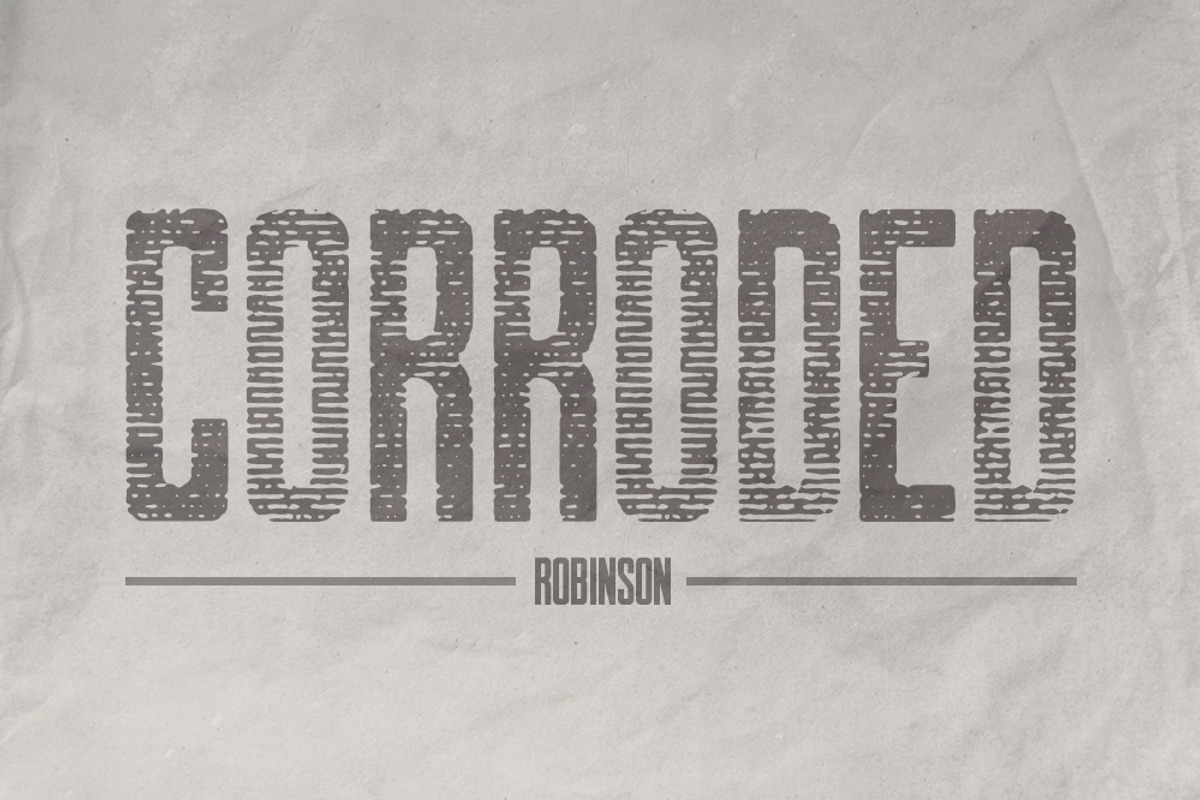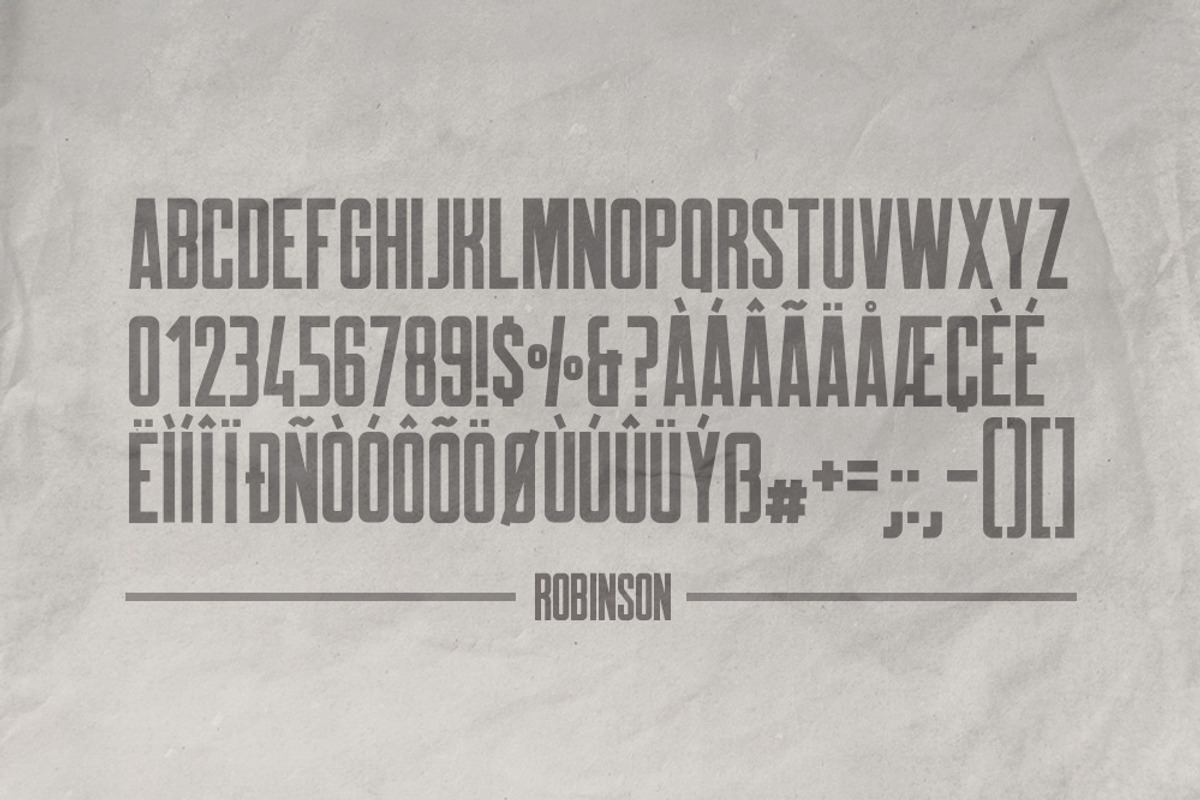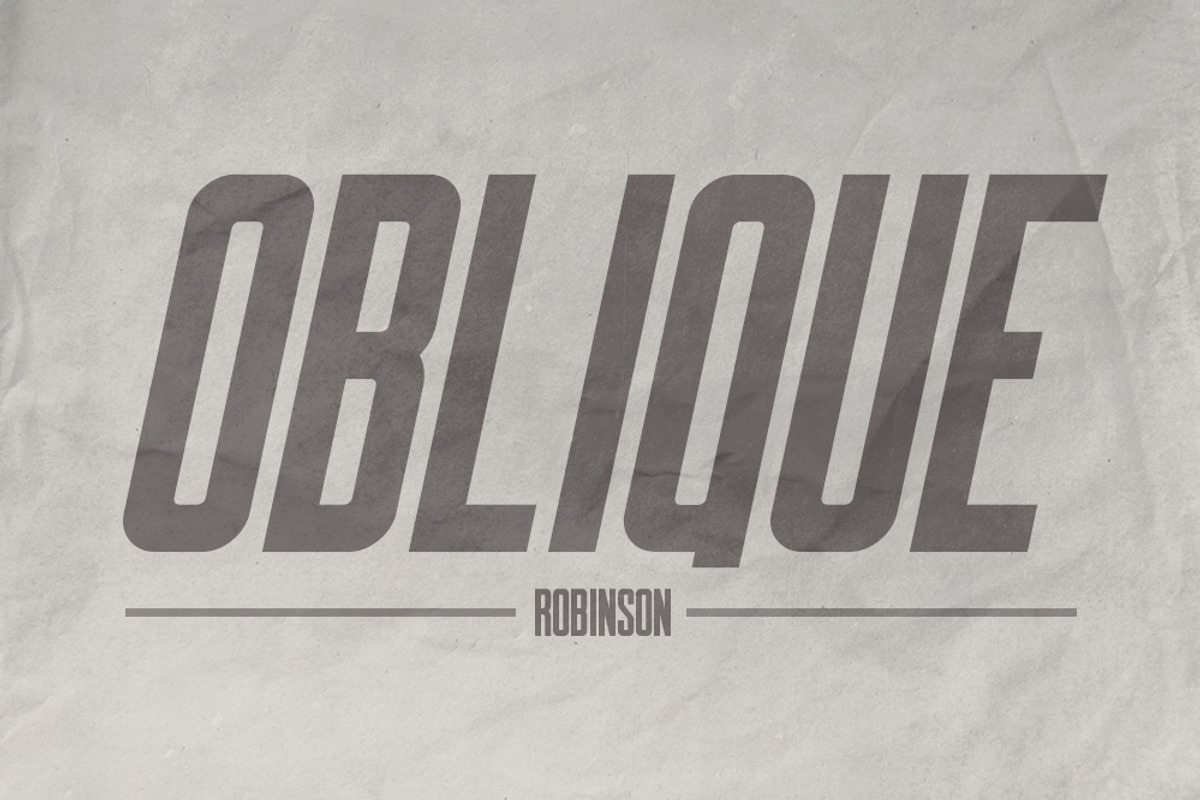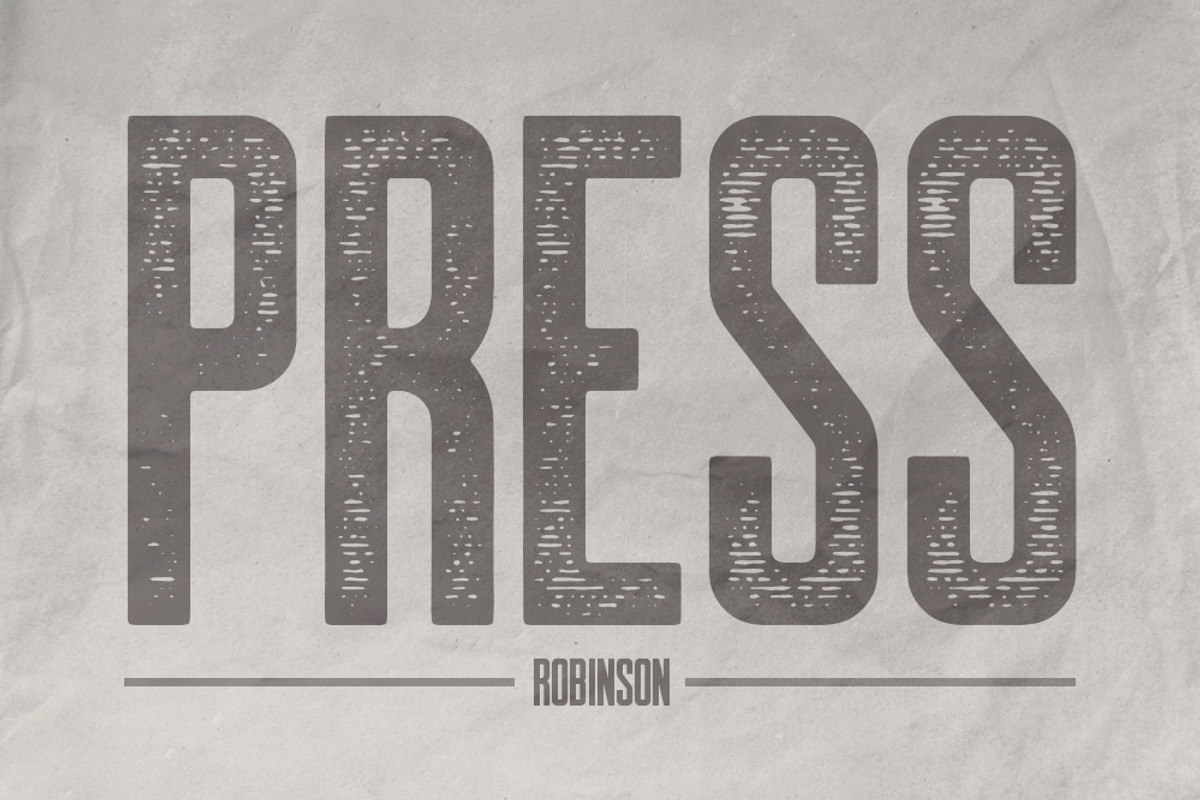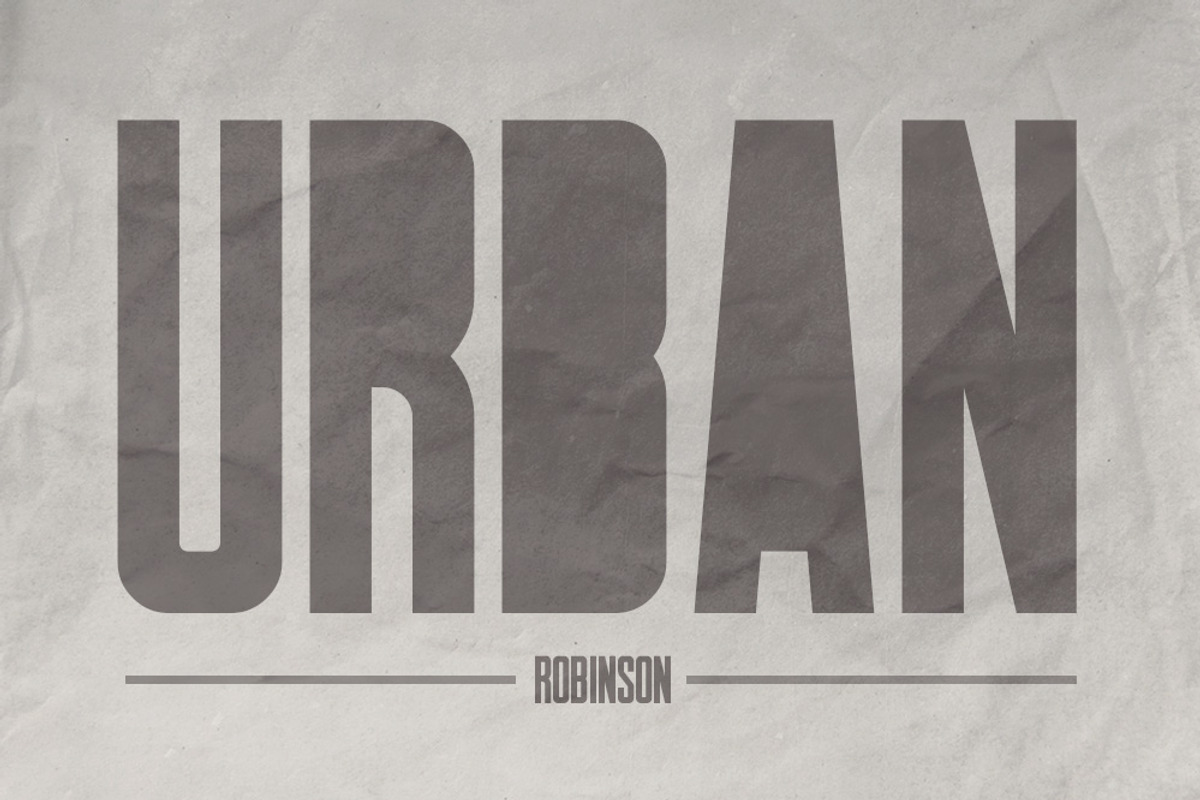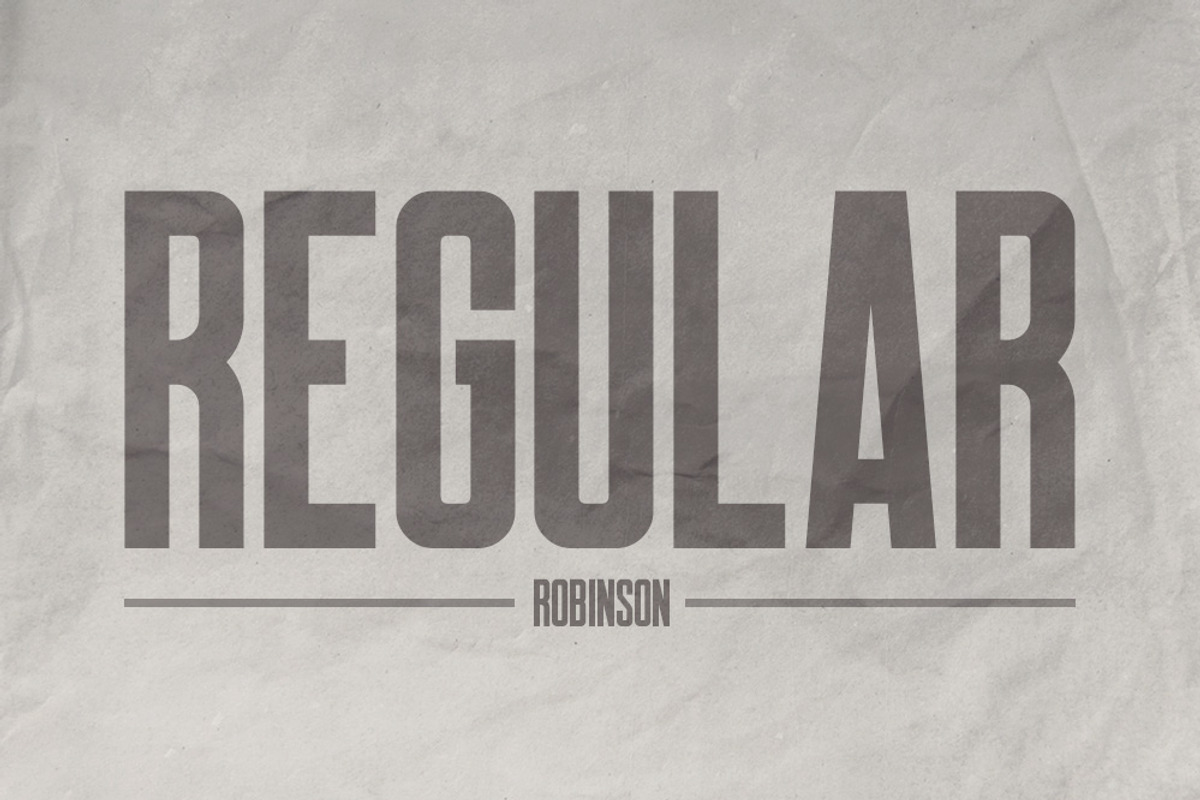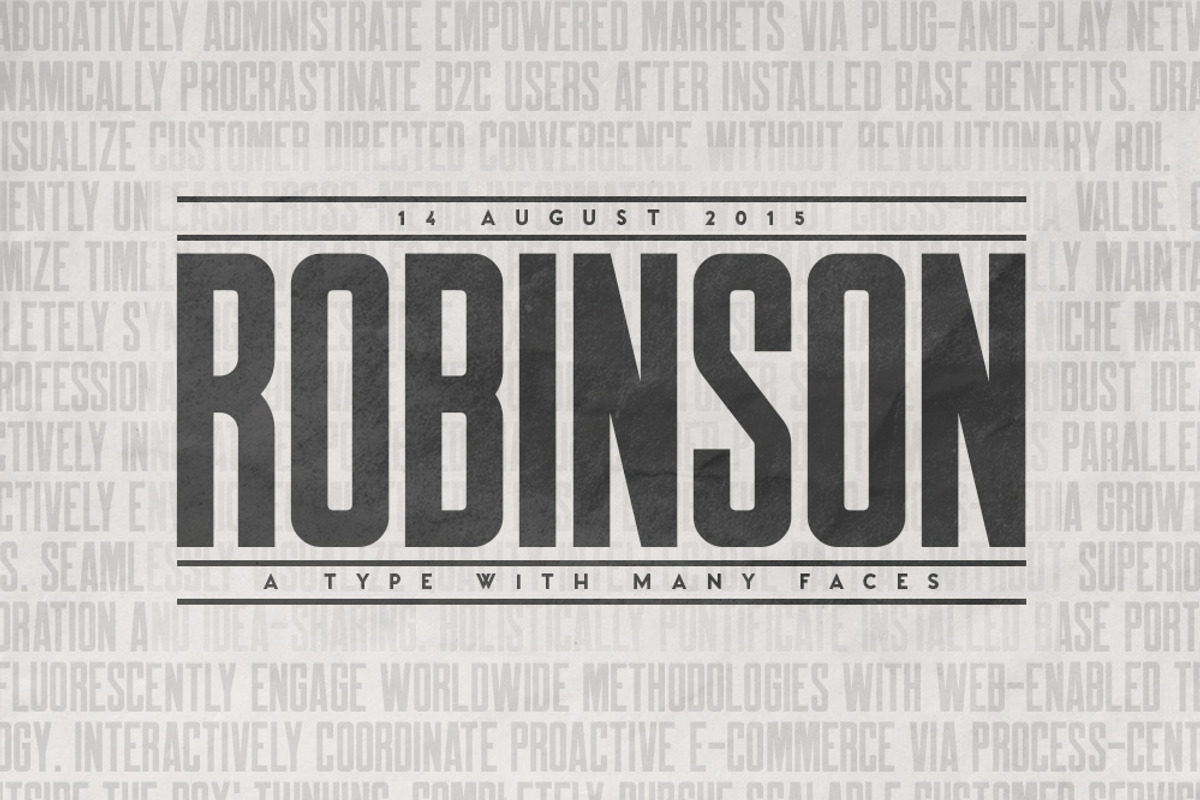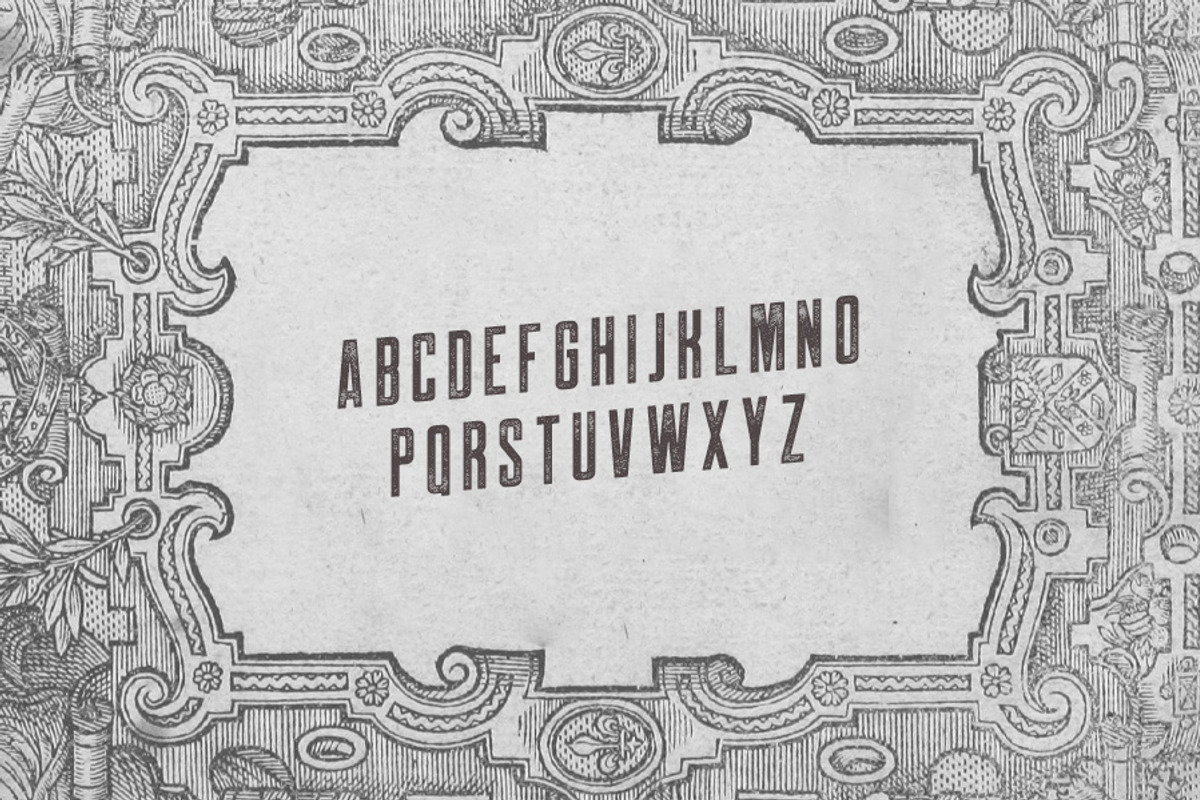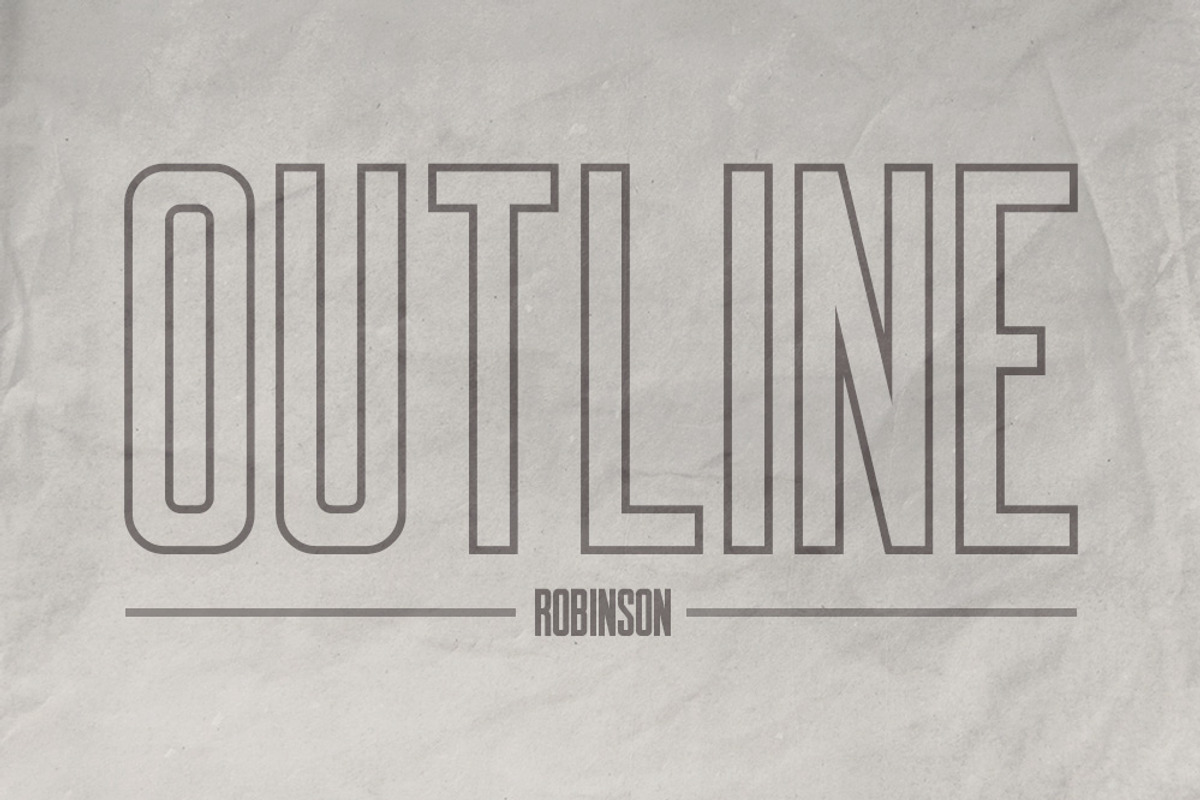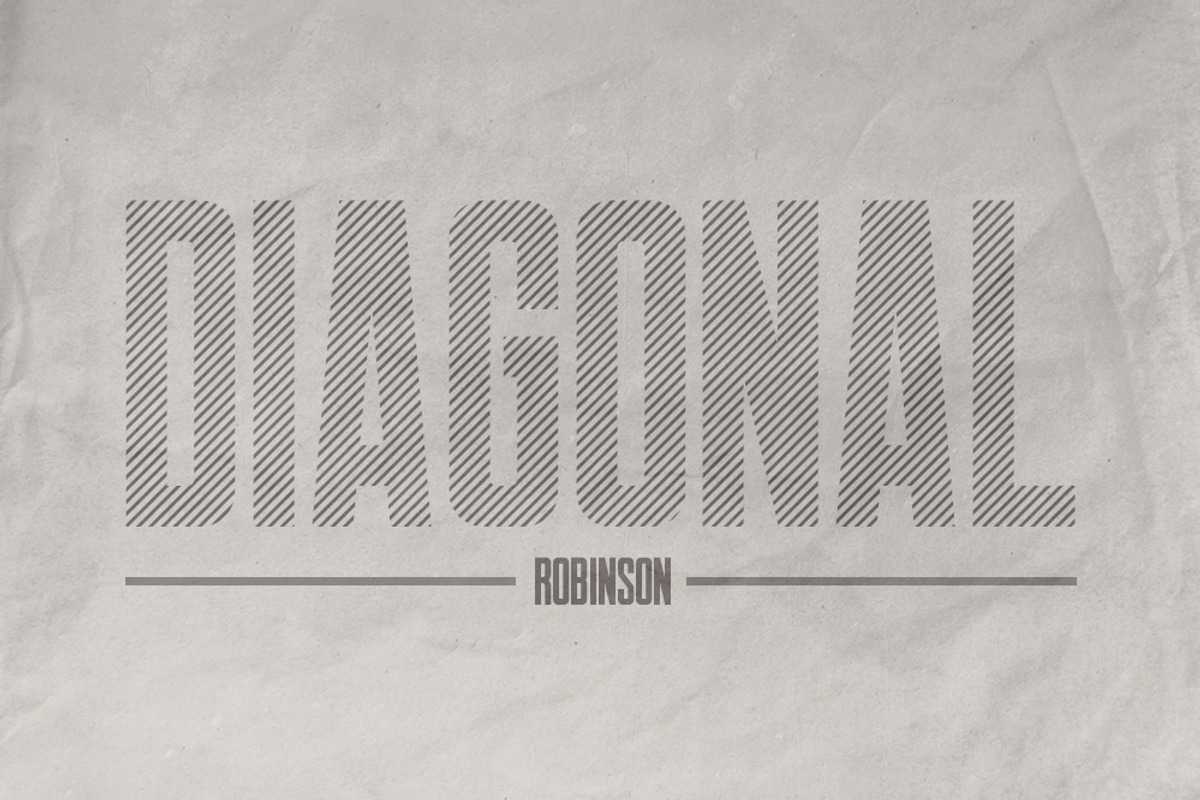
Robinson Typeface
Robinson is a font inspired by vintage newspaper titles. It's great for having a bold and attractive title followed by smaller text. It was made specifically with magazines and posters in mind. It includes:
- 18 Styles
- Uppercase multilingual letters, numbers and punctuation
- Meticulous kerning pairs and rounded corners